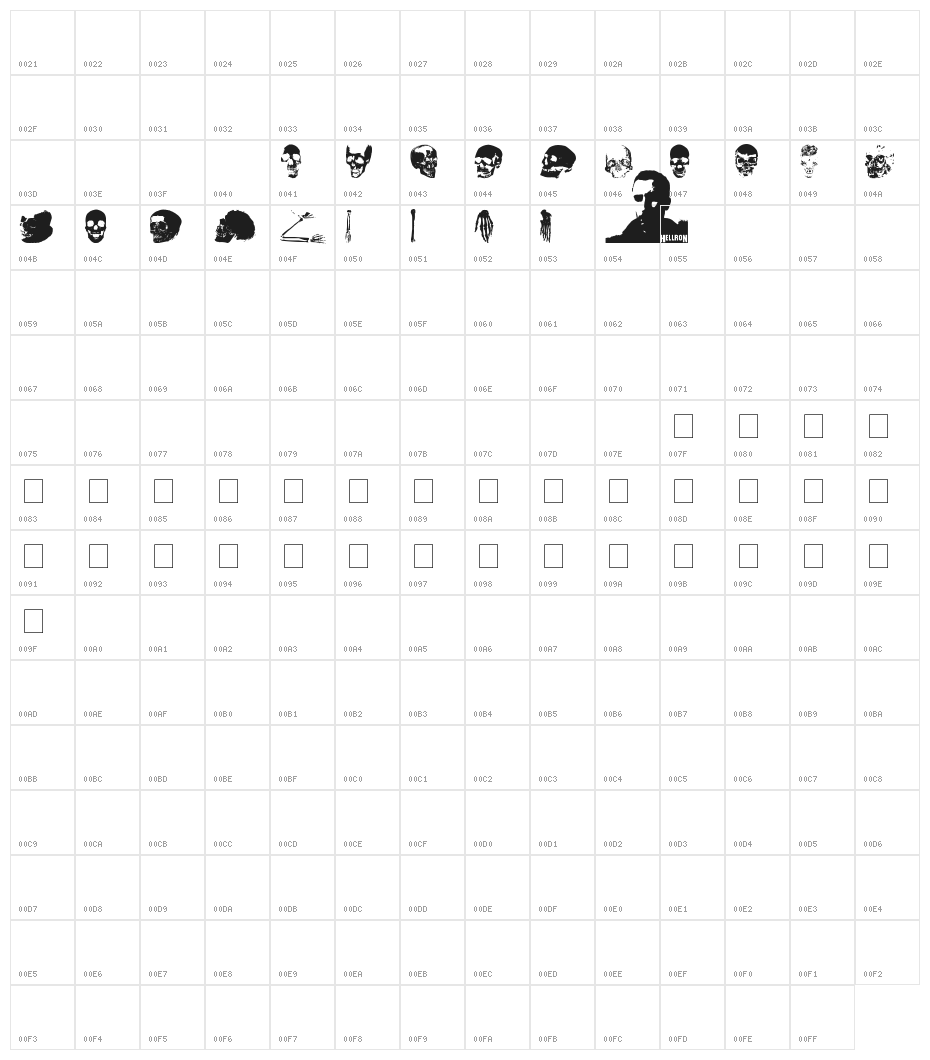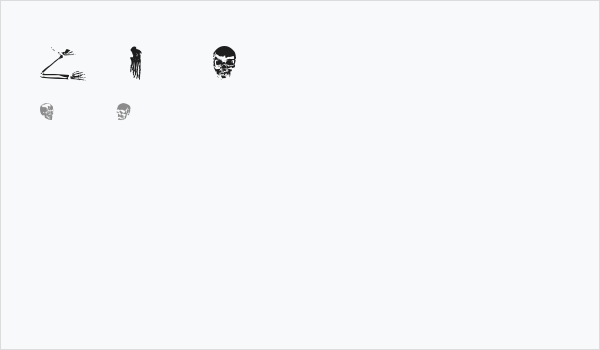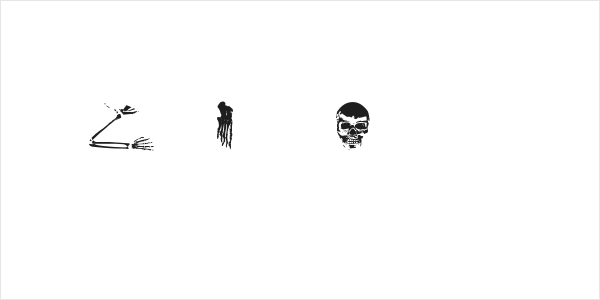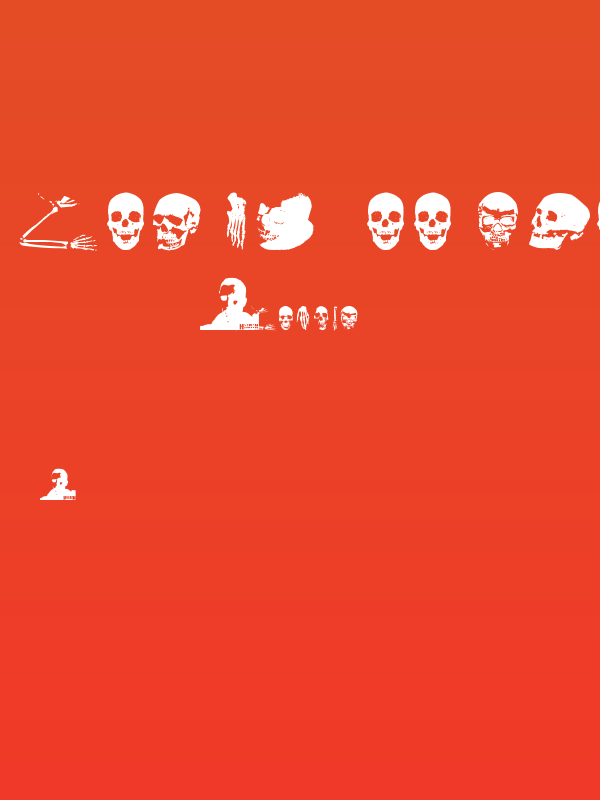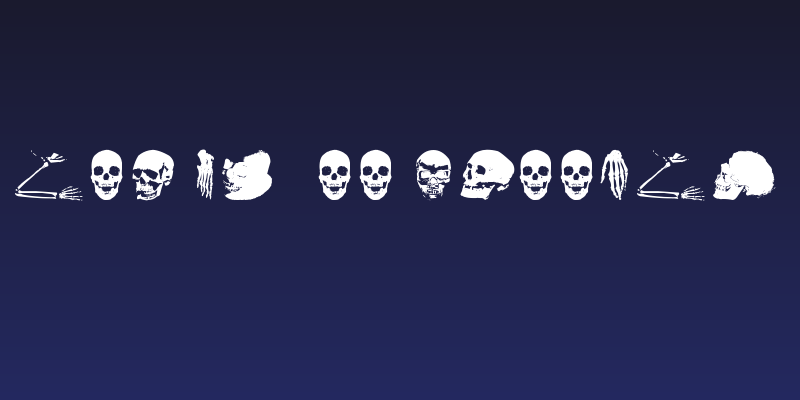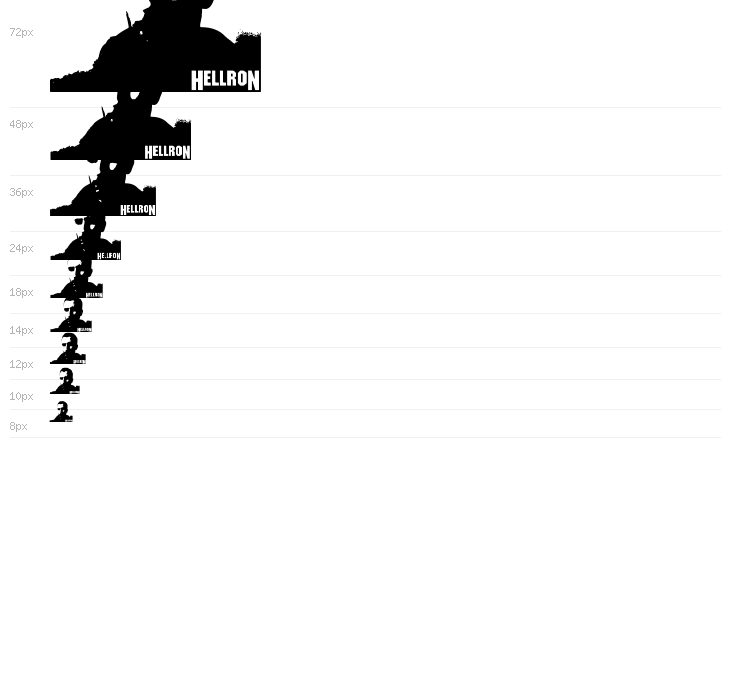
Old Skull Hellron Font
Old Skull Hellron Description
A highly decorative and illustrative set of glyphs featuring detailed skulls, bones, and anatomical elements, rendered in a bold, high-contrast black-and-white style.
| Overall Style | Decorative, Grunge, Gothic |
| Use Case | Logos, Posters, Themed graphics, Album covers |
| Proposed Projects | Halloween posters, horror-themed graphics, band merchandise, tattoo designs, alternative event branding. |